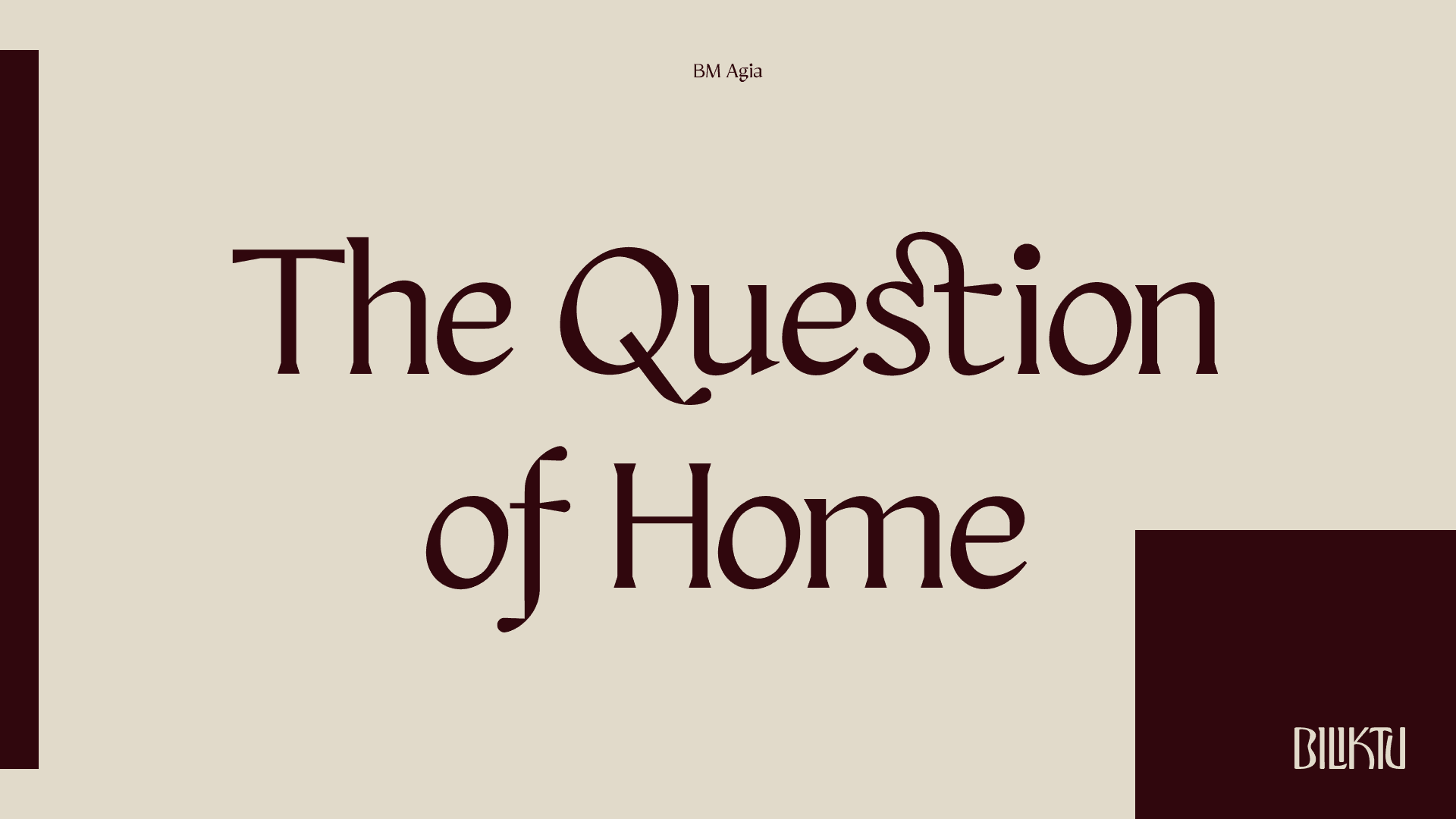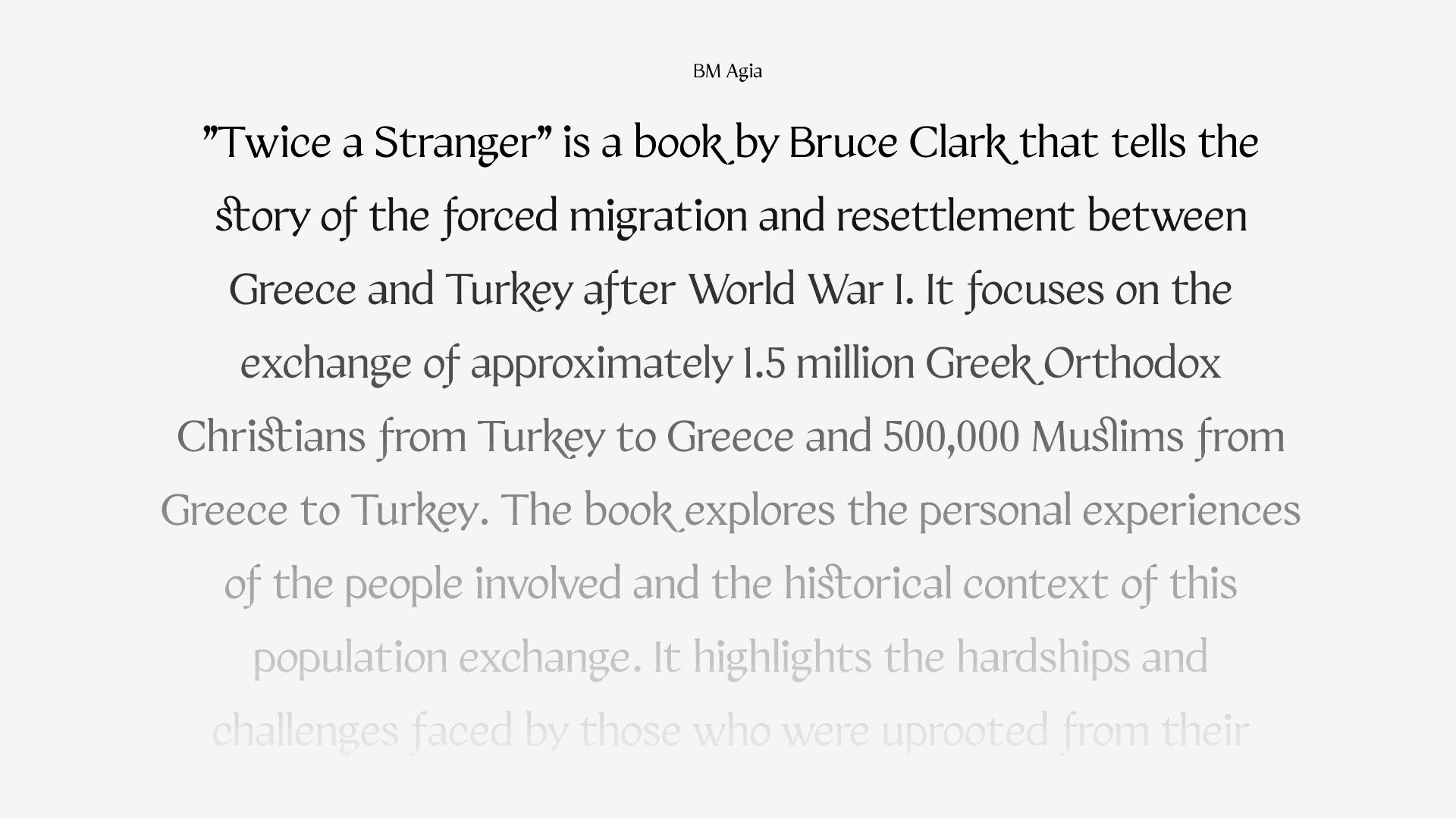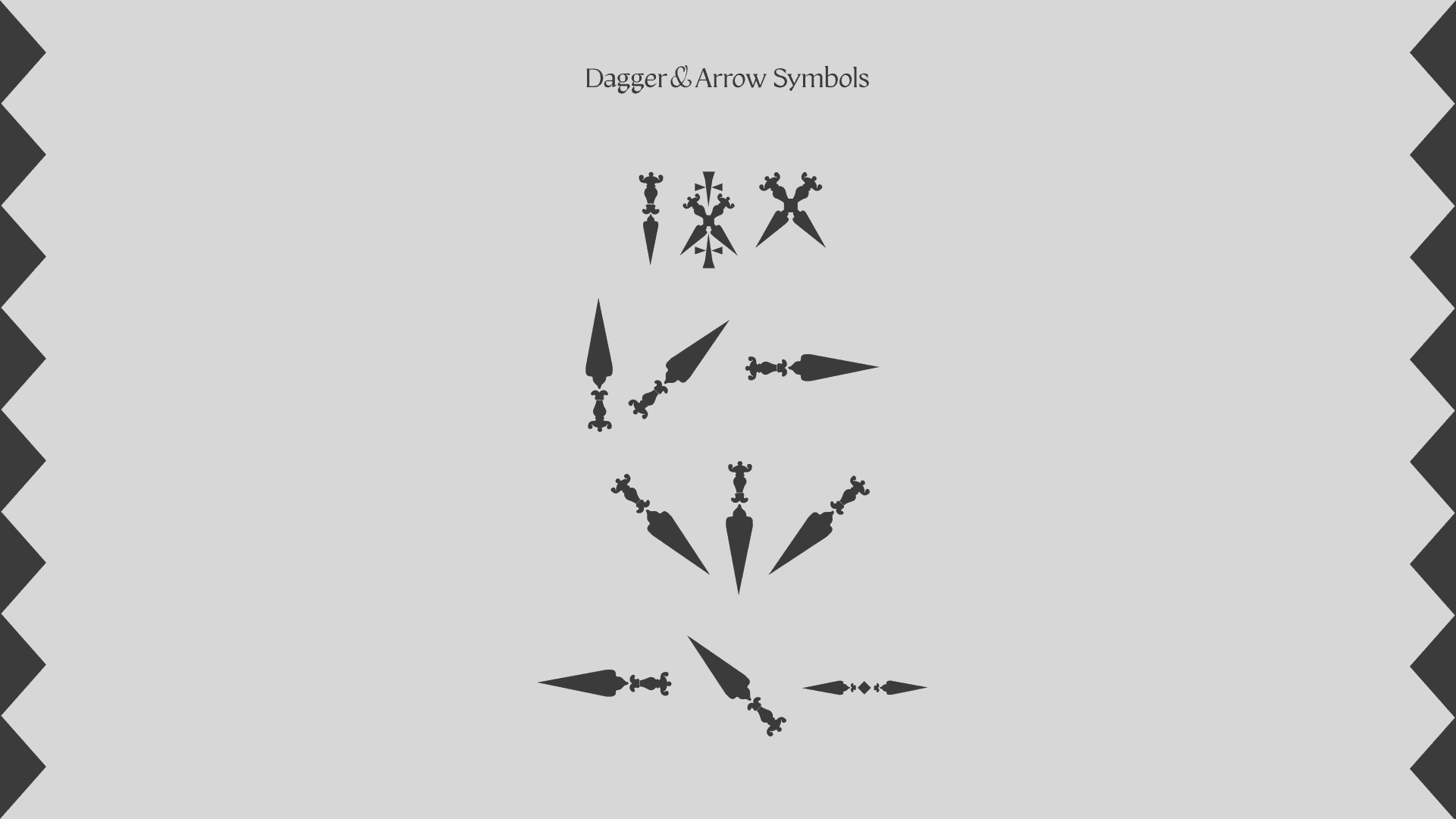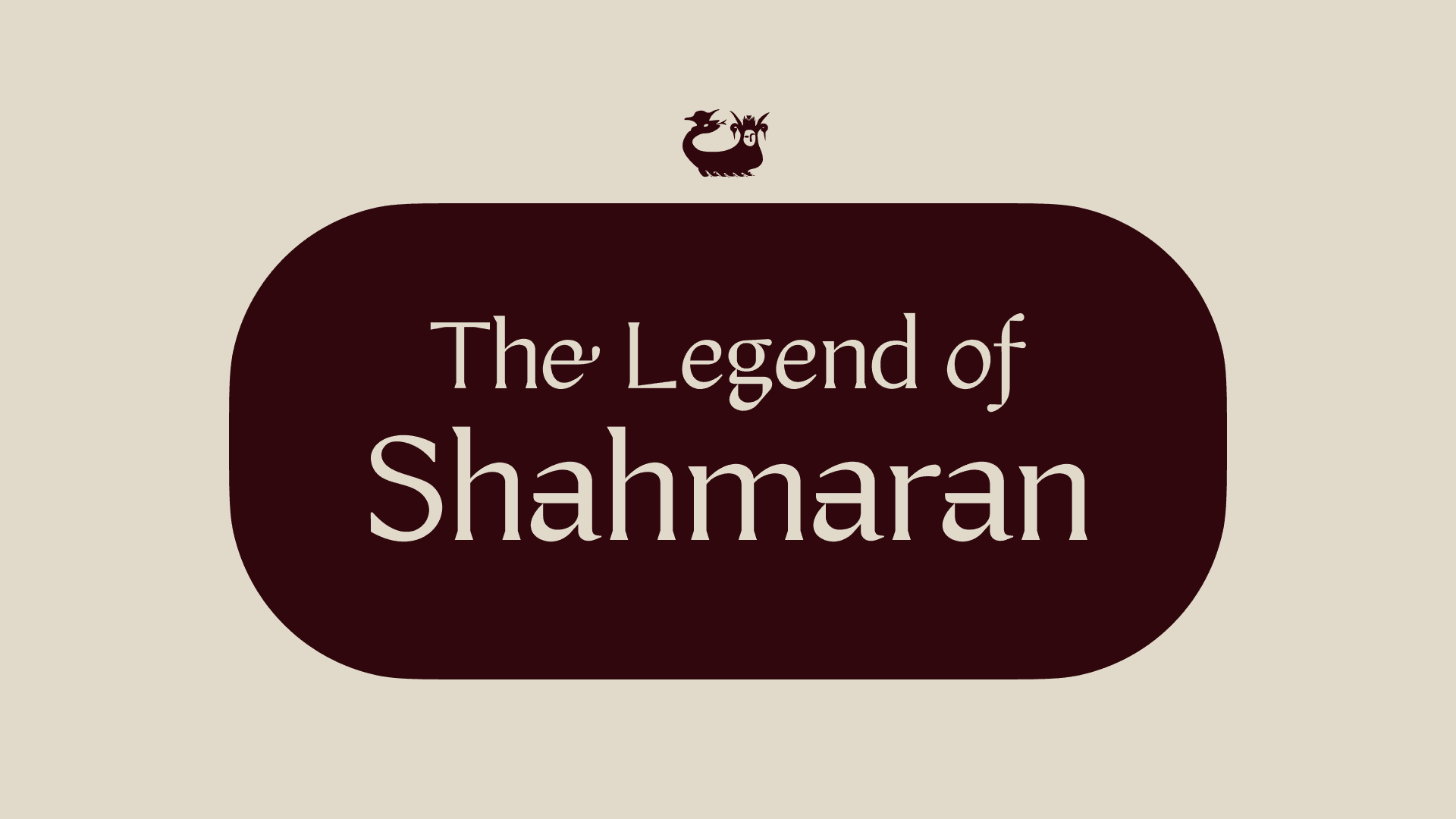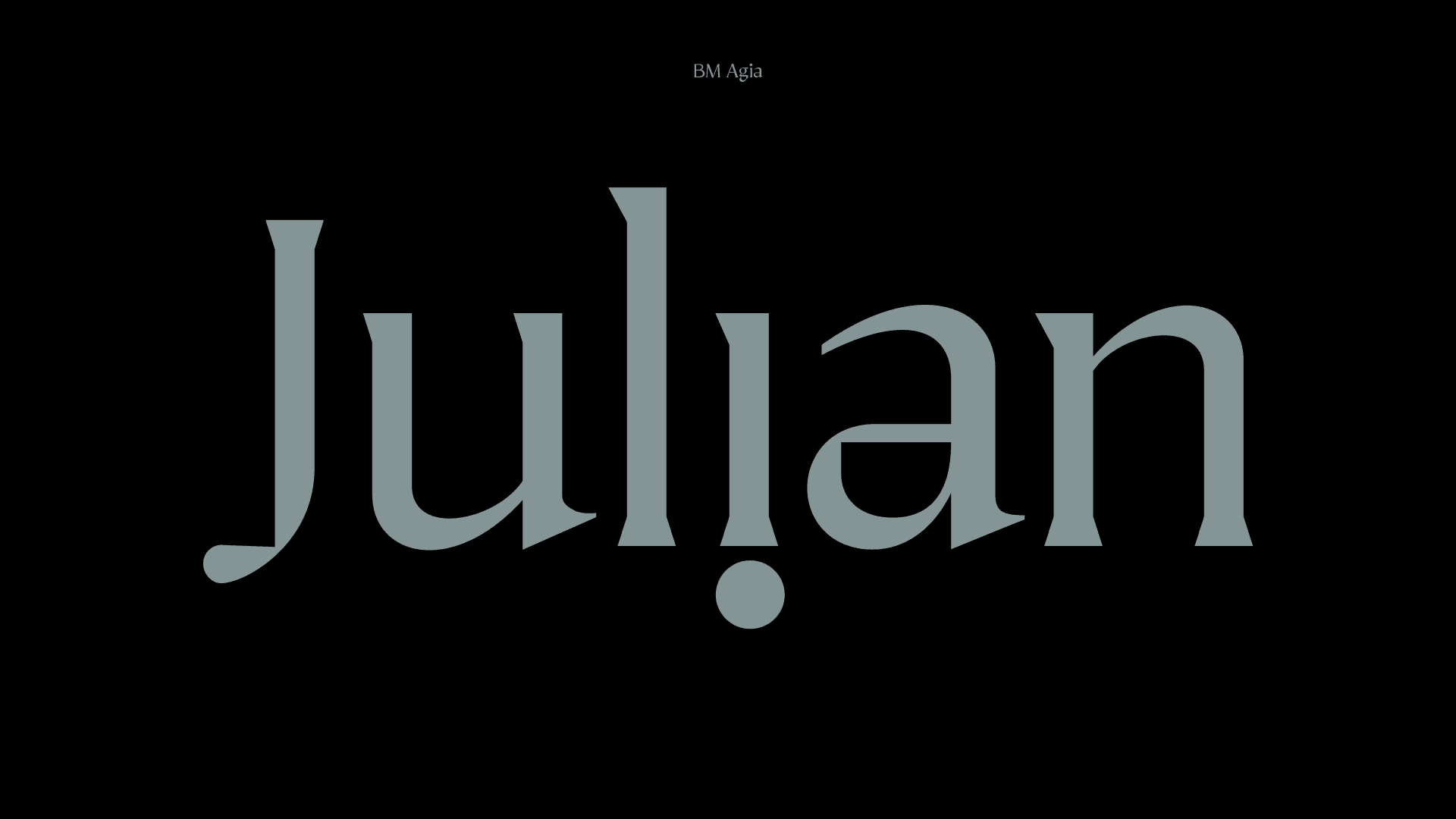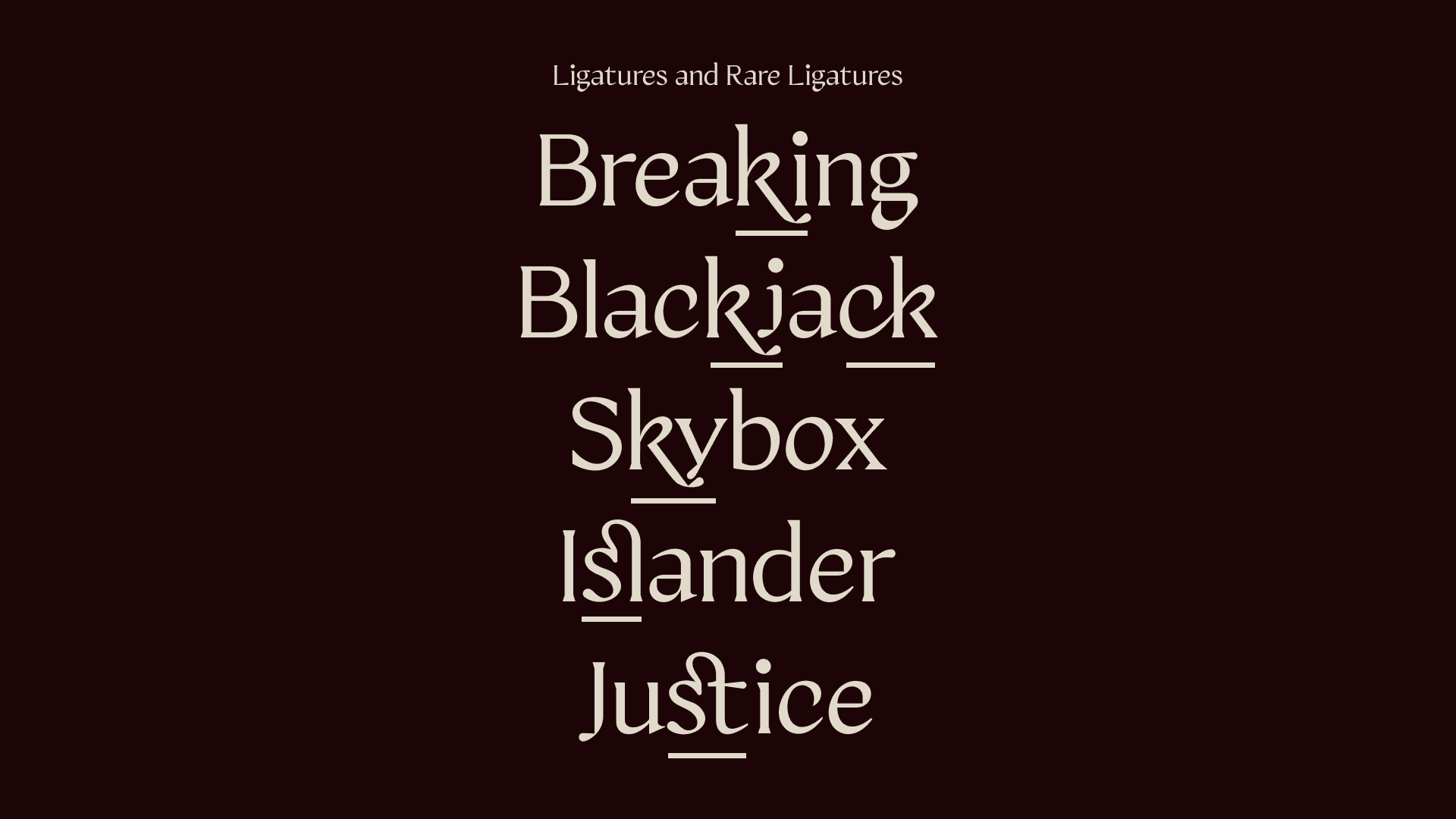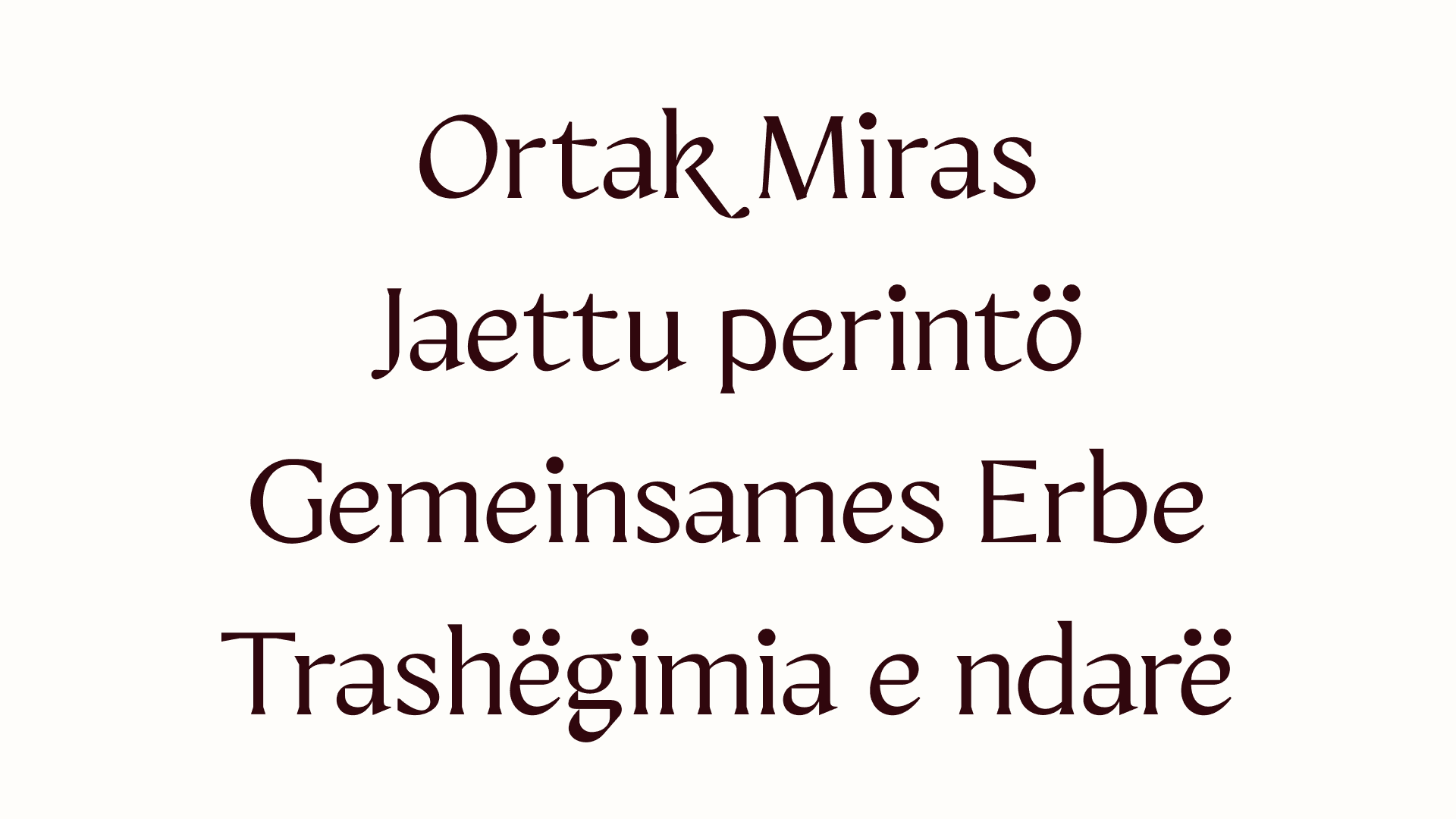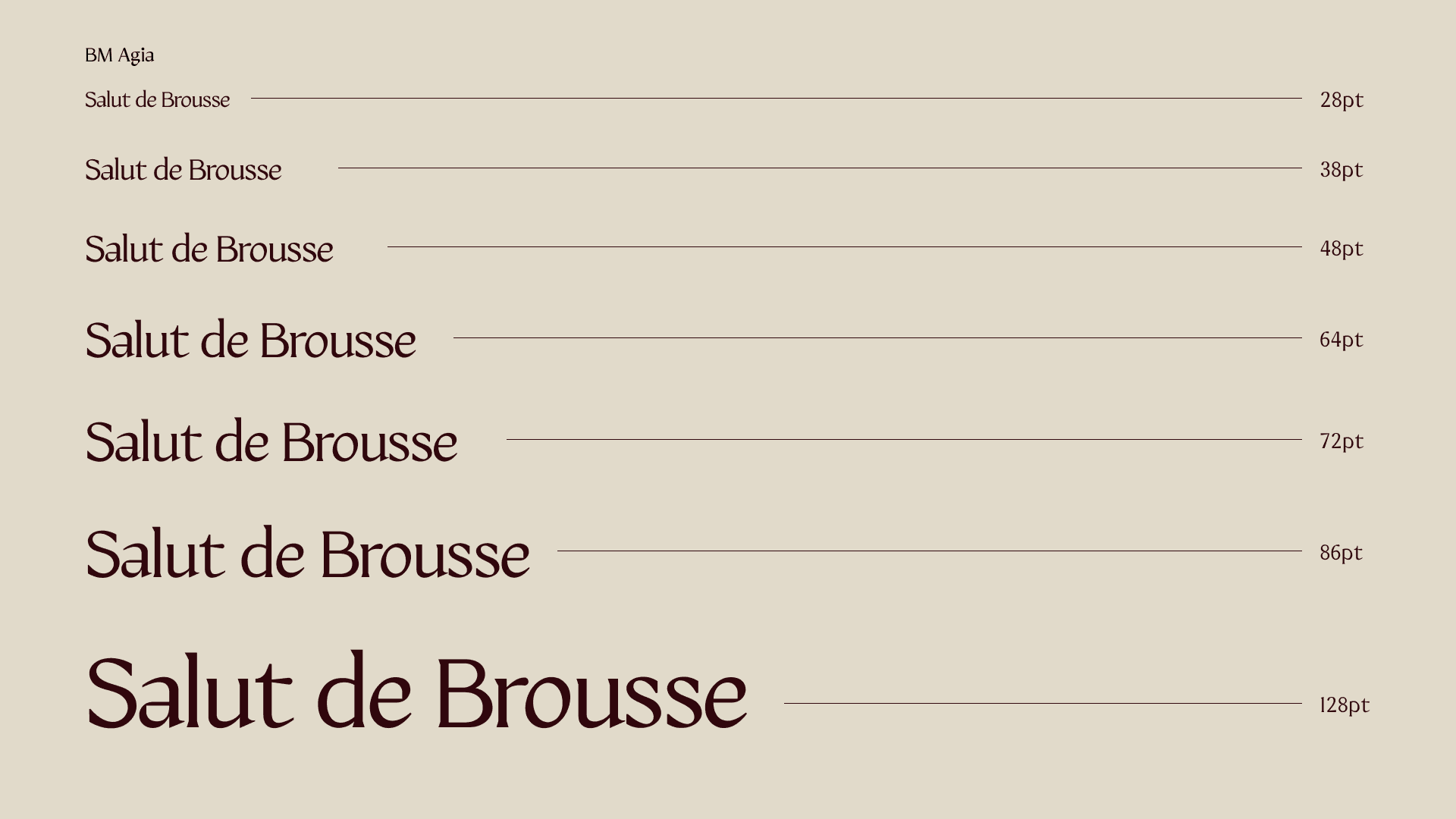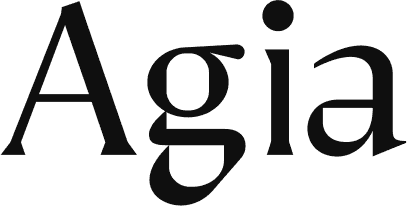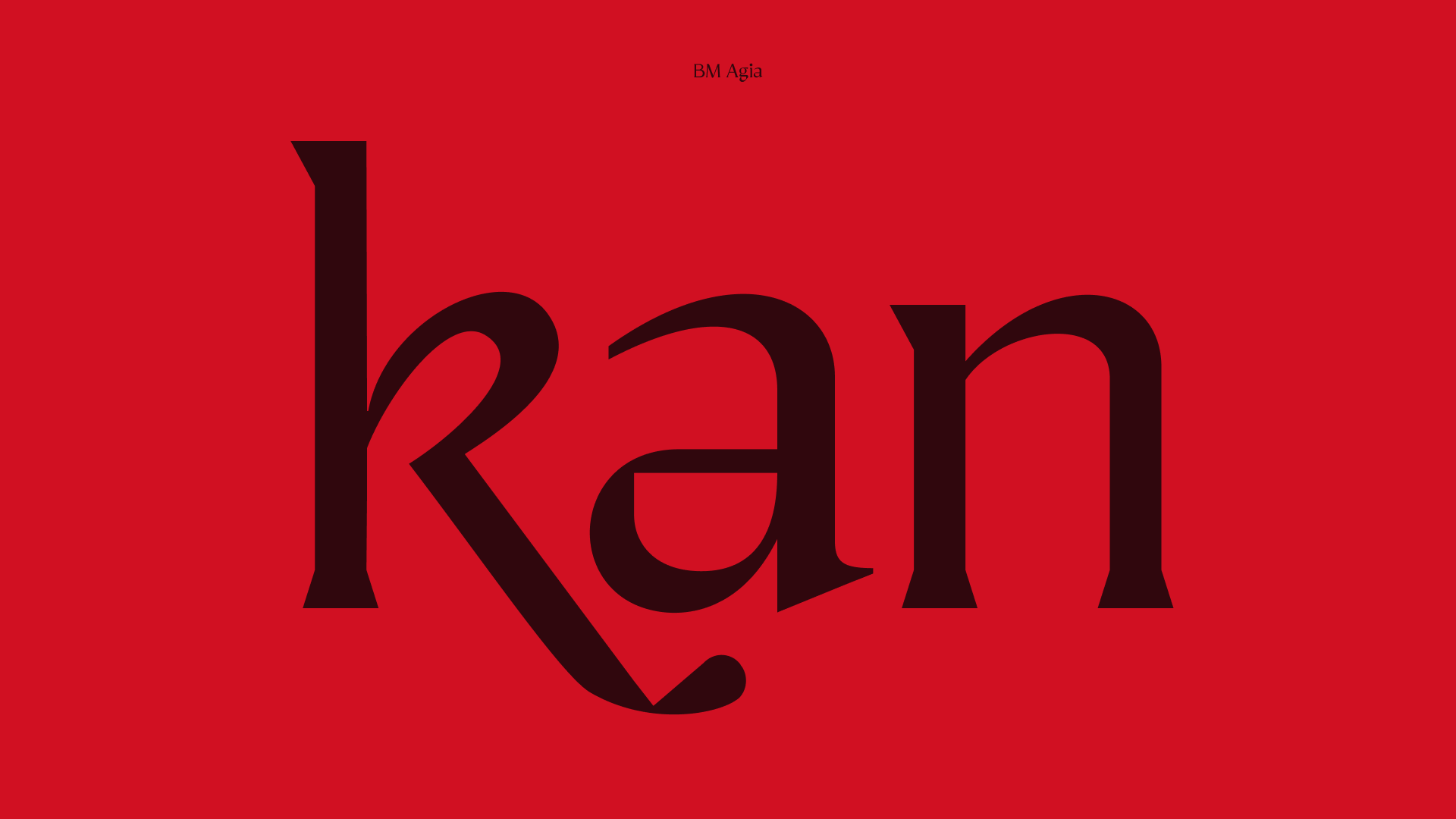
This typeface emerged from my personal curiosity about the events unfolding in the Balkans and Mesopotamia during the late 1800s, With my own personal connections to these regions, I delved into the stories that unfolded. Inspired by the stories of becoming strangers to once-familiar neighbors, of loss and separation, I decided to create lettering that captured their essence which in the end became BM Agia typeface.
Infusing my work with cultural elements, I aim to preserve the untold or nearly forgotten stories, keeping them alive through artistic expression. While my message may be subtle, because my intention was to make you curious, I want you to learn it yourself.